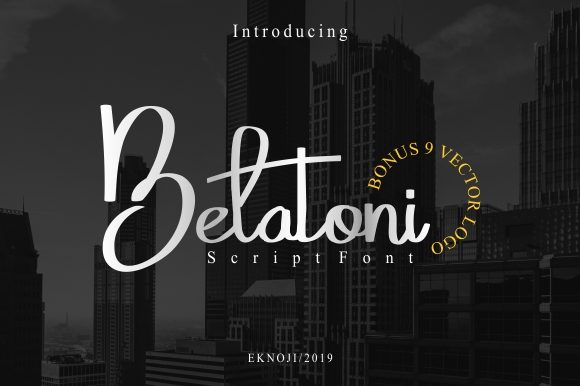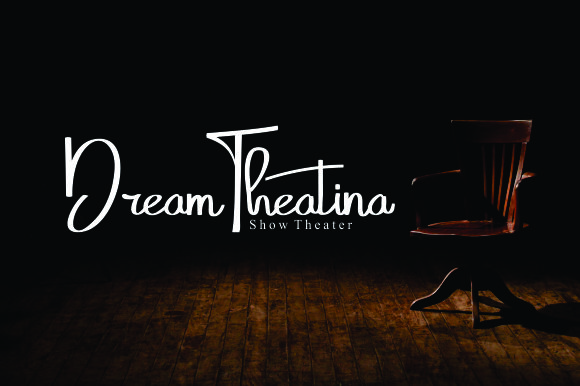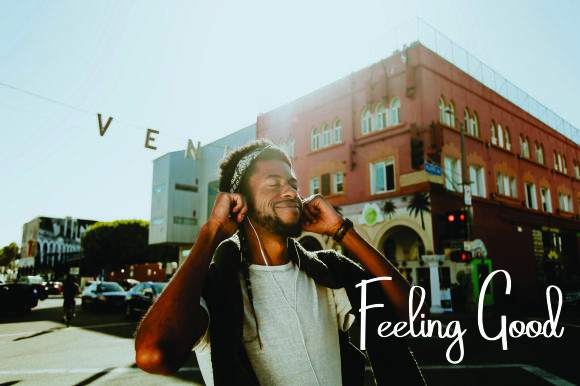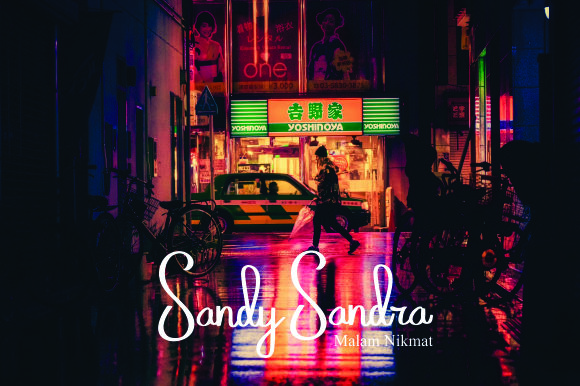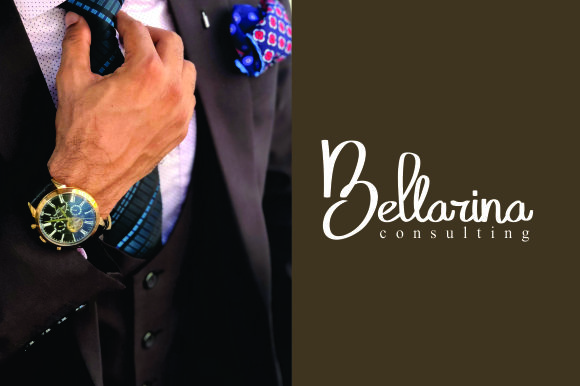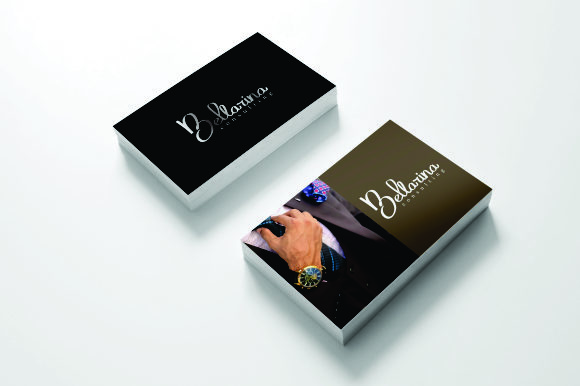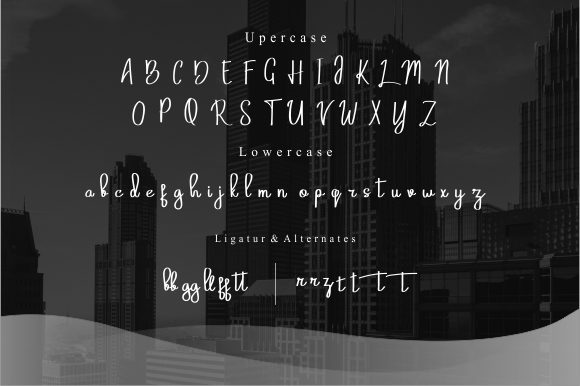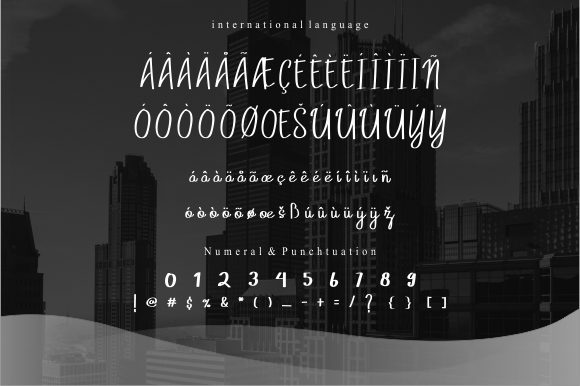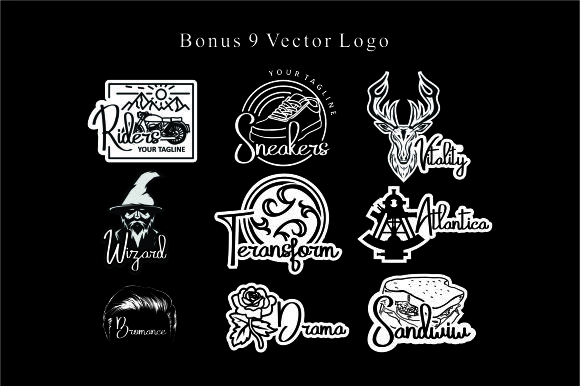
Belatoni Font
About Belatoni Font
Belatoni is a gorgeous and light script font that’s perfect for turning any crafts project into an authentic piece of art.